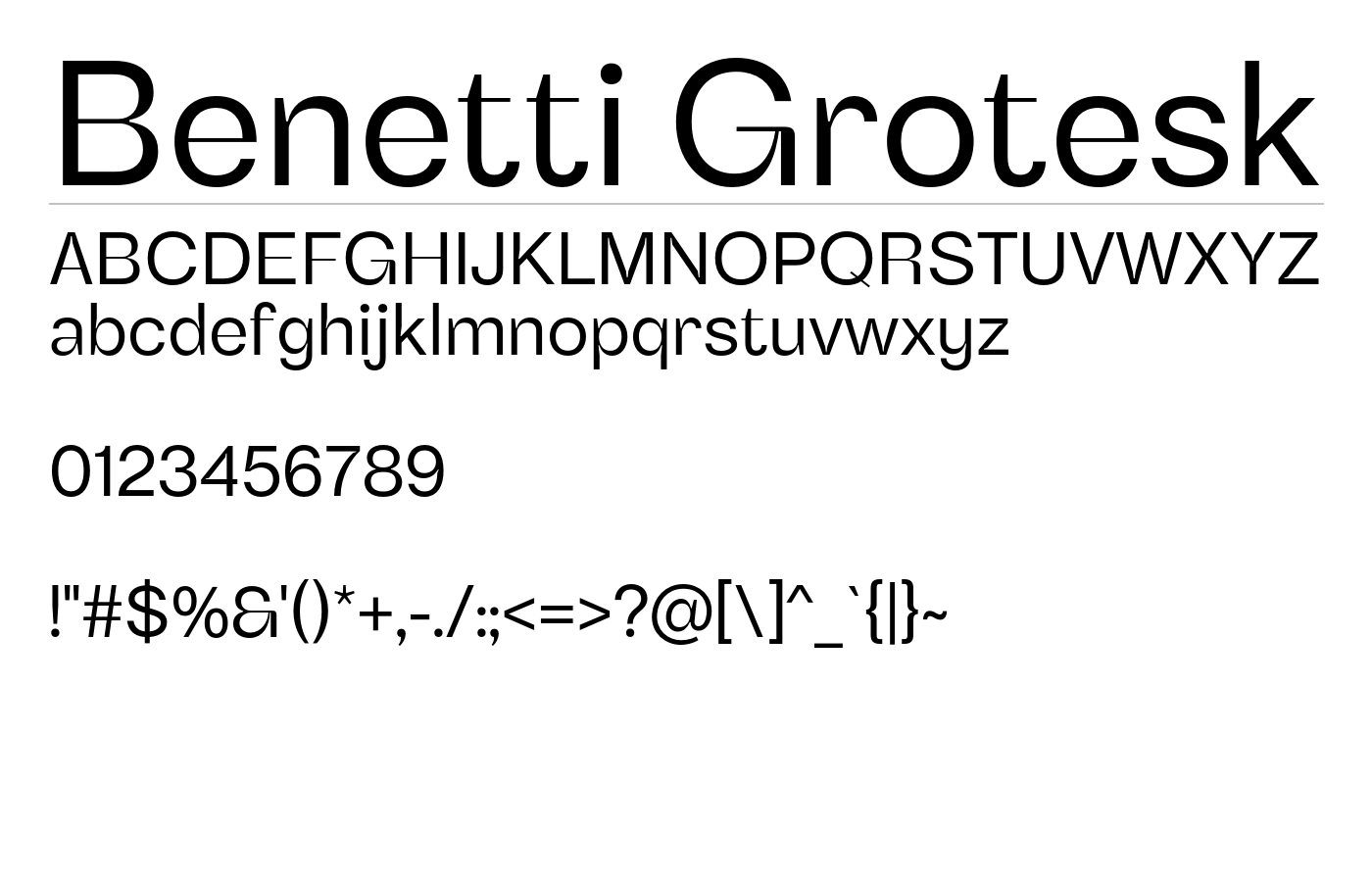
Benetti Grotesk is a clean and modern sans serif font with a regular weight and a slightly condensed width, offering a balanced x-height that enhances readability. Its low contrast strokes and simple geometric shapes give it a straightforward and professional feel, making it ideal for contemporary branding, editorial layouts, and digital interfaces where clarity and a sleek appearance are key. This font works well for headlines and body text alike, thanks to its versatile design and elegant simplicity.
Benetti Grotesk Font
About Benetti Grotesk Font